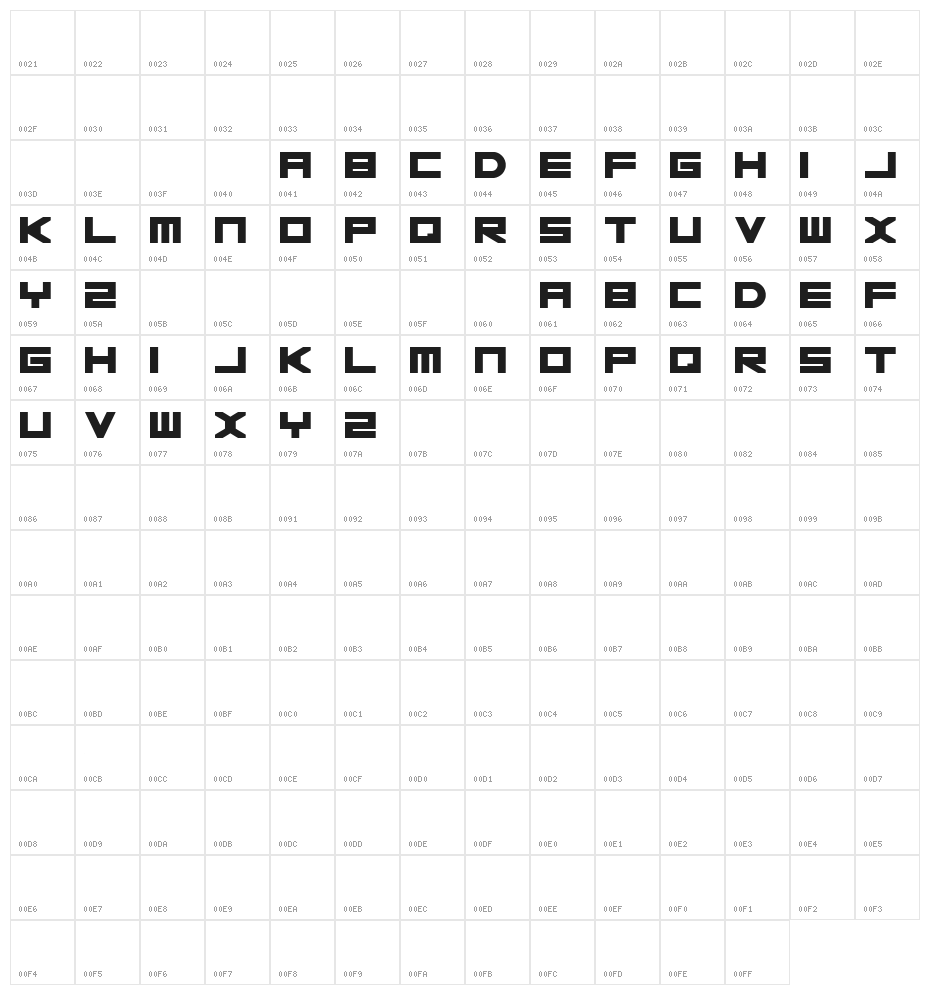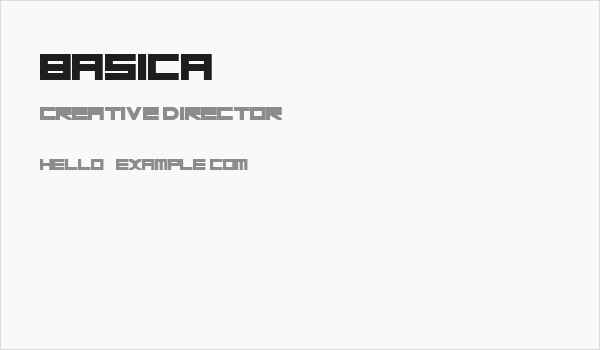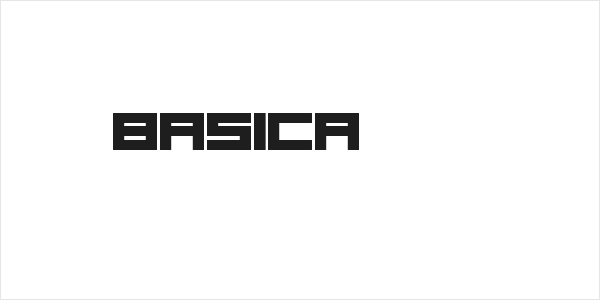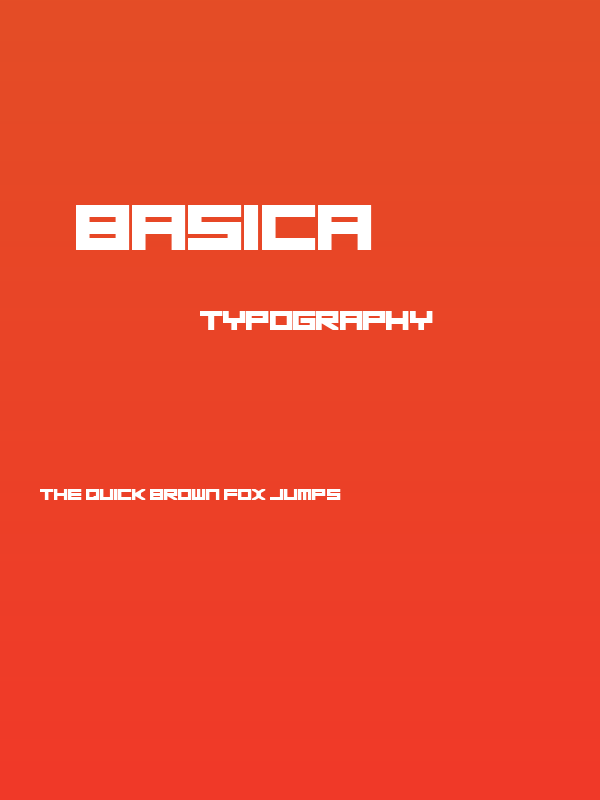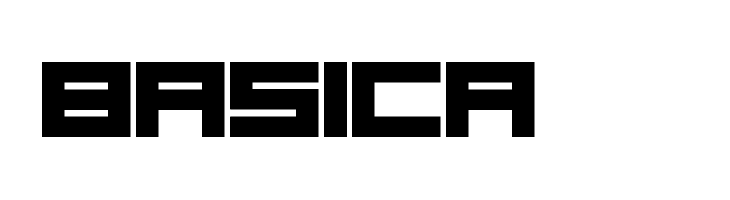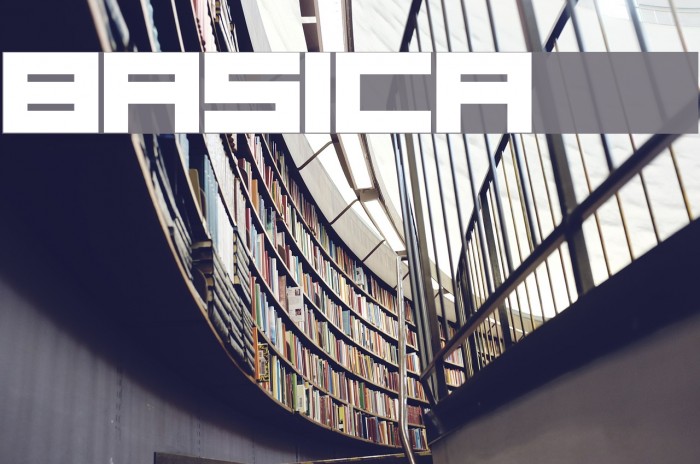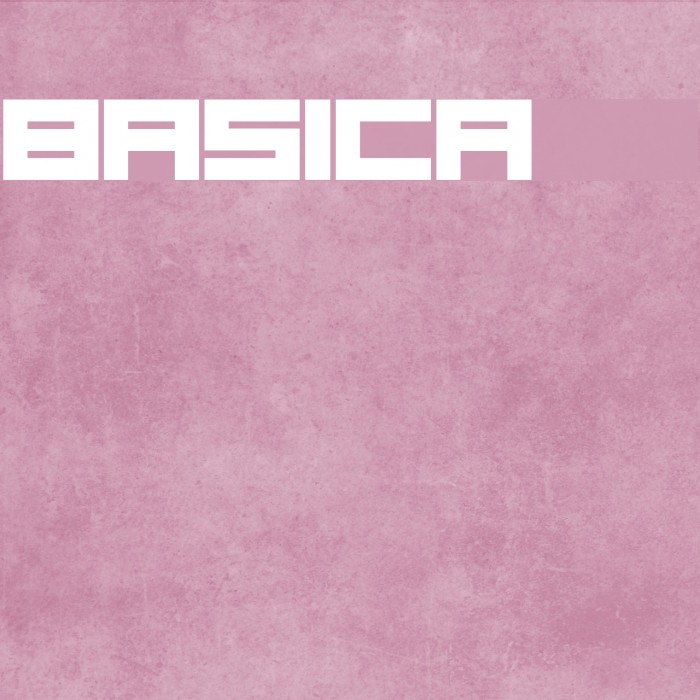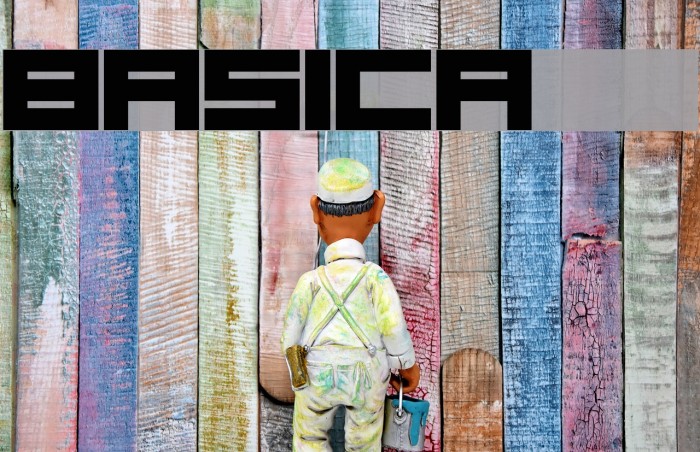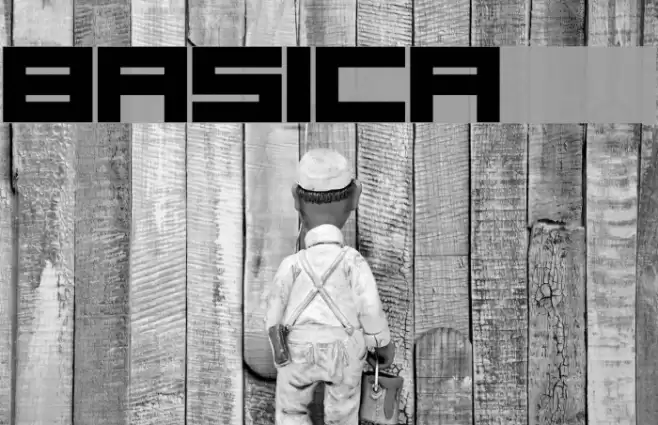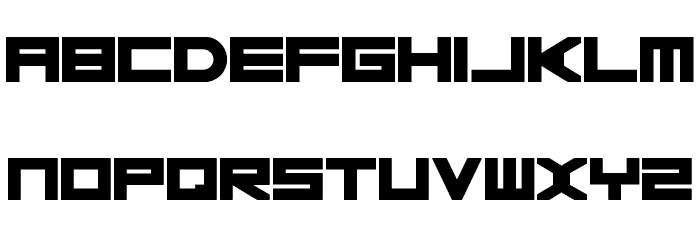
This font features a bold, geometric design with a strong emphasis on straight lines and right angles. Each character is constructed with a consistent stroke width, creating a uniform and cohesive appearance. The uppercase letters are particularly striking, with a blocky, almost futuristic aesthetic that commands attention. The font's design is reminiscent of digital or technological themes, making it suitable for modern and innovative projects. Its clear and legible style ensures readability while maintaining a distinctive visual impact.
| Proposed Projects | Ideal for technology branding, video game titles, digital interfaces, and modern advertising campaigns. |